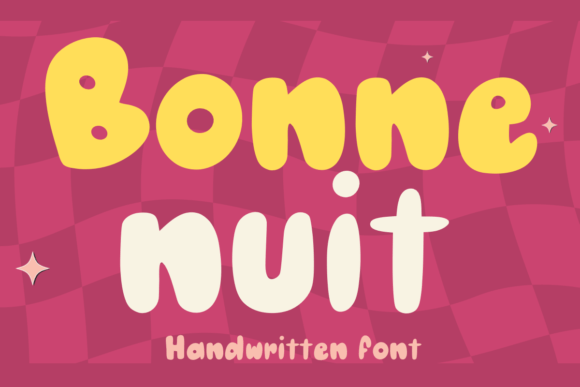
Prepare to be spellbound by Bonnie Nuit Font, a script font crafted with meticulous detail to ignite your creative spirit. This captivating handwritten sans serif font exudes a timeless charm that will leave you smitten. Embrace the magic of Bonnie Nuit, and your designs will radiate with a touch of elegance and playfulness.
Picture this: Your Easter cards adorned with Bonnie Nuit's enchanting aura, spreading joy and warmth to loved ones. Back-to-school projects come alive with a dash of whimsy and individuality. Wedding invitations take on a romantic, ethereal quality, promising a celebration that's nothing short of extraordinary.
Party decorations infused with Bonnie Nuit's playful spirit create an atmosphere of pure delight, while posters and blogs exude a captivating charm that draws readers in. Clothing designs adorned with Bonnie Nuit's unique flair speak volumes about your impeccable taste and style. Child-related designs take on a new level of cuteness, capturing the essence of innocence and wonder.
Greeting cards crafted with Bonnie Nuit's delicate touch convey heartfelt messages with an added layer of sincerity. Cloth bags and mugs embellished with Bonnie Nuit's artistry become cherished keepsakes, while social media posts adorned with its allure captivate audiences with their undeniable charm.
Bonnie Nuit's versatility knows no bounds. It effortlessly adapts to a myriad of design projects, adding a touch of magic to everything it graces. Fall in love with its incredibly distinct and timeless style, and watch as your creative dreams take flight. Bonnie Nuit is your passport to a world of design possibilities, where every project becomes a masterpiece.